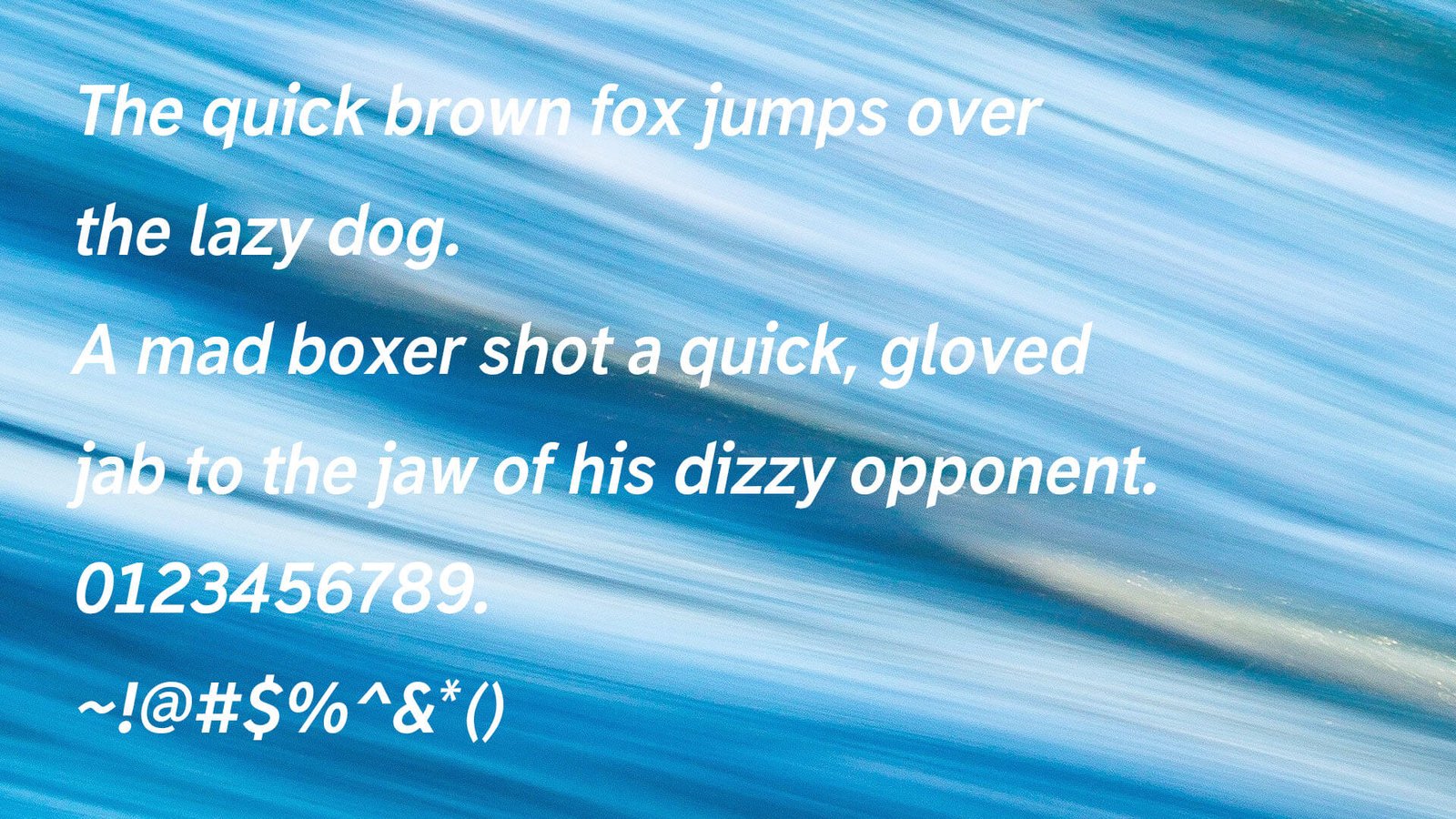
Here is another simple and attractive font that is Madras font which is designed by the famous typeface designer named Thomas Gillett. Thomas Gillett is one of the famous designers from Australia. This attractive font lies in the sans serif typeface category.
It has a very simple design. It can be utilized in almost all types of projects.
Madras Font Family
| Name | Madras Font |
| Designer | Thomas Gillett |
| Type | Sans Serif |
It contains wide spacing and proportion so that every word can easily be read. So this font is a user-friendly font that can be used in your design for a better user experience.